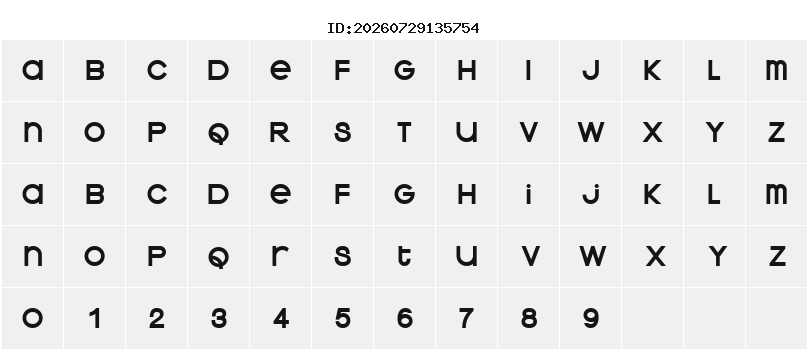
Kravitz Extra Thermal Preview
• Font Name: Kravitz Extra Thermal
• Full Font Name: Kravitz Extra Thermal
About Kravitz Extra Thermal.ttf
Kravitz Extra Thermal.ttf is a modern, elegant sans-serif font designed for ultimate readability and visual harmony. Perfect for branding, headlines, web design, and print materials.